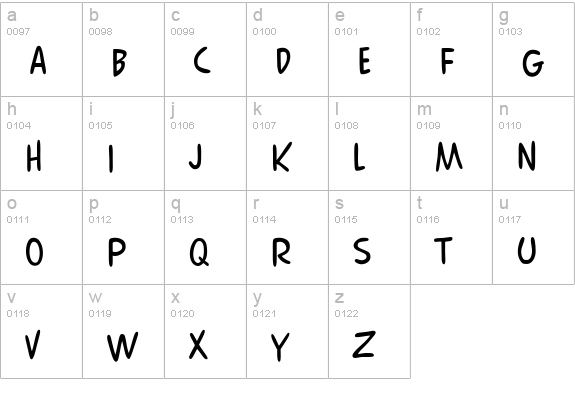
ComicsCarToon Regular is the standard, neutral variant in the ComicsCarToon typeface family \xE2\x80\x94 well suited to general body text, paragraphs, and standard typographic work.
ComicsCarToon Regular is a playful and whimsical font that exudes a sense of fun and creativity. Perfect for comic books, posters, children's books, and more, this font adds a touch of lighthearted charm to any project. With its bold and quirky characters, ComicsCarToon Regular is sure to grab attention and bring a smile to your audience's face. Best of all, ComicsCarToon Regular is available for free download at FontsMarket.com. This means you can easily access this delightful font and incorporate it into your designs without any cost. So why wait? Add a touch of humor and whimsy to your projects with ComicsCarToon Regular today!